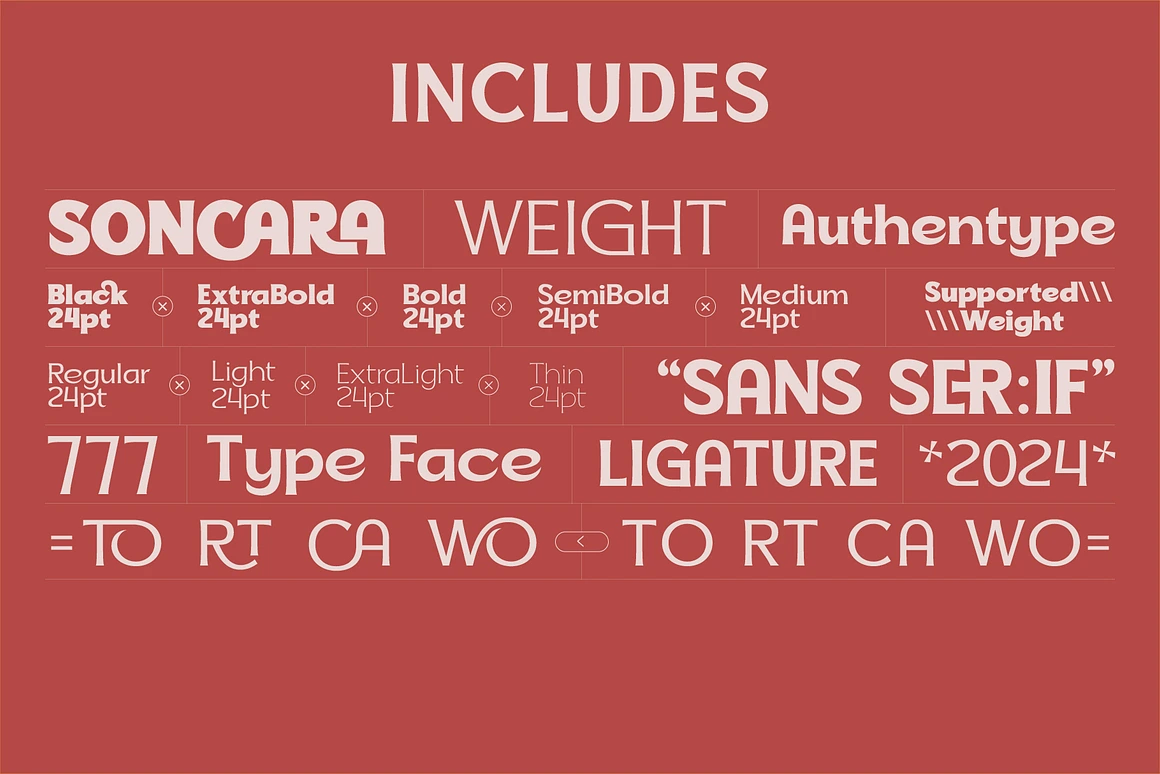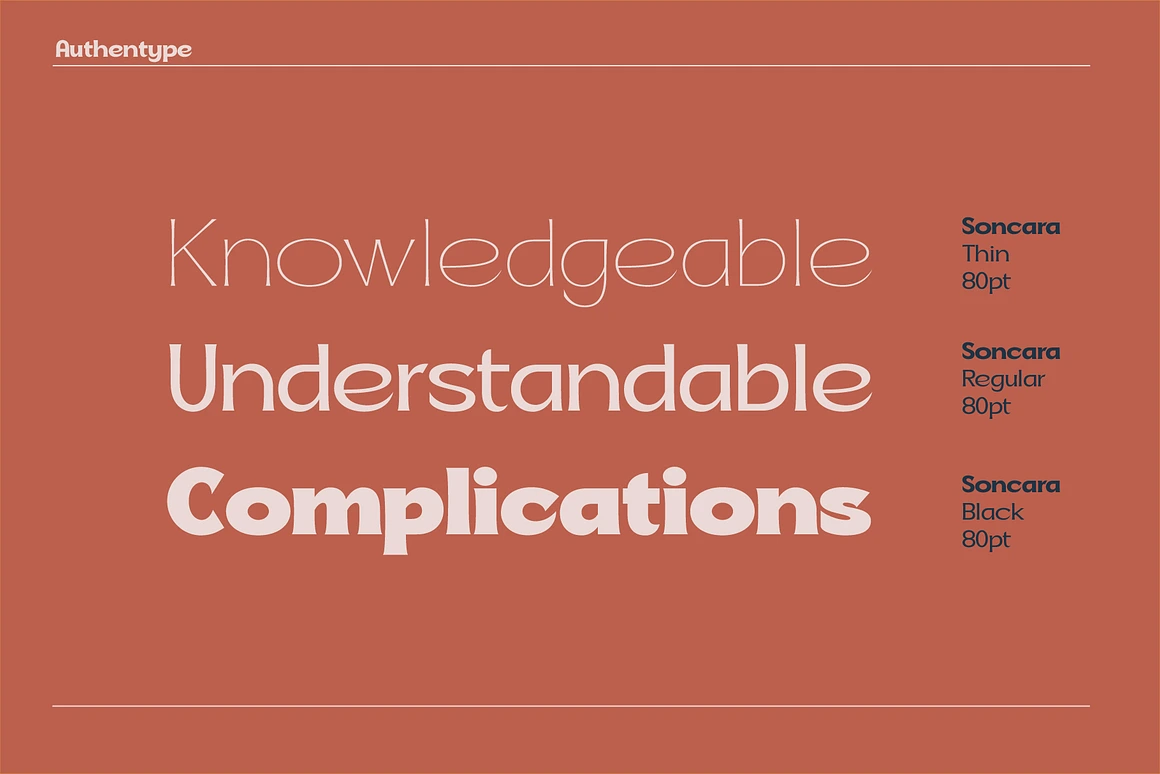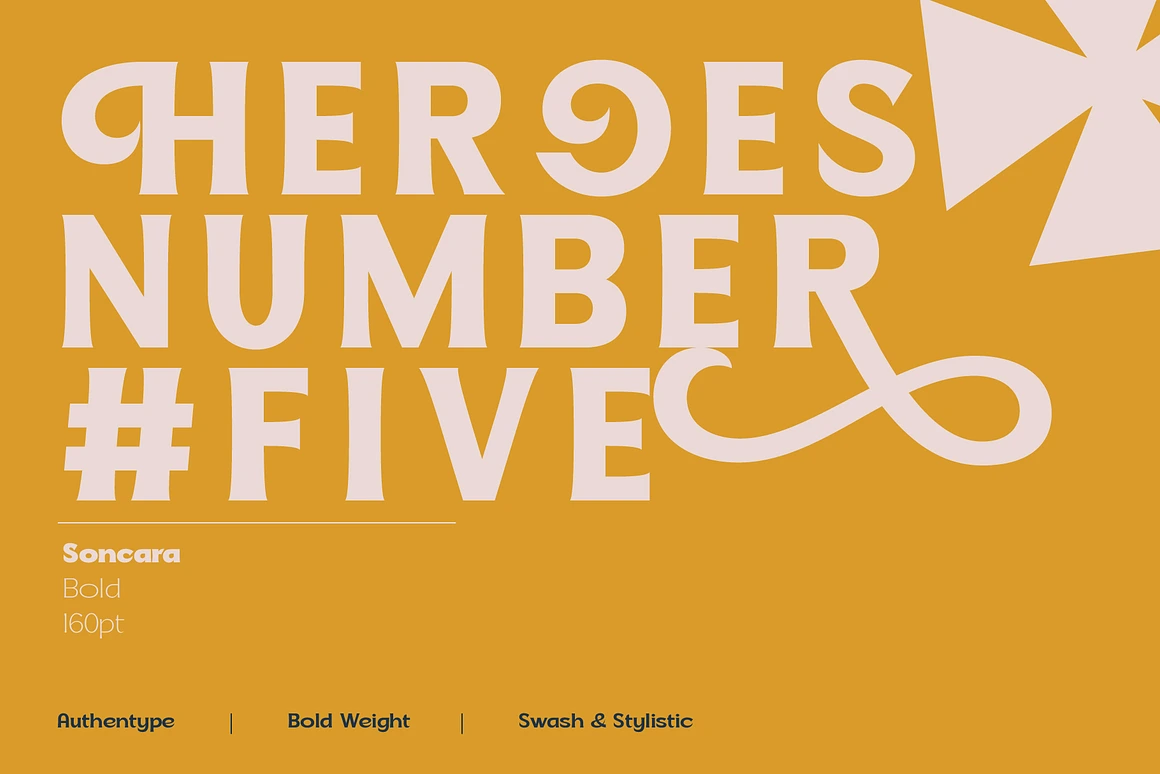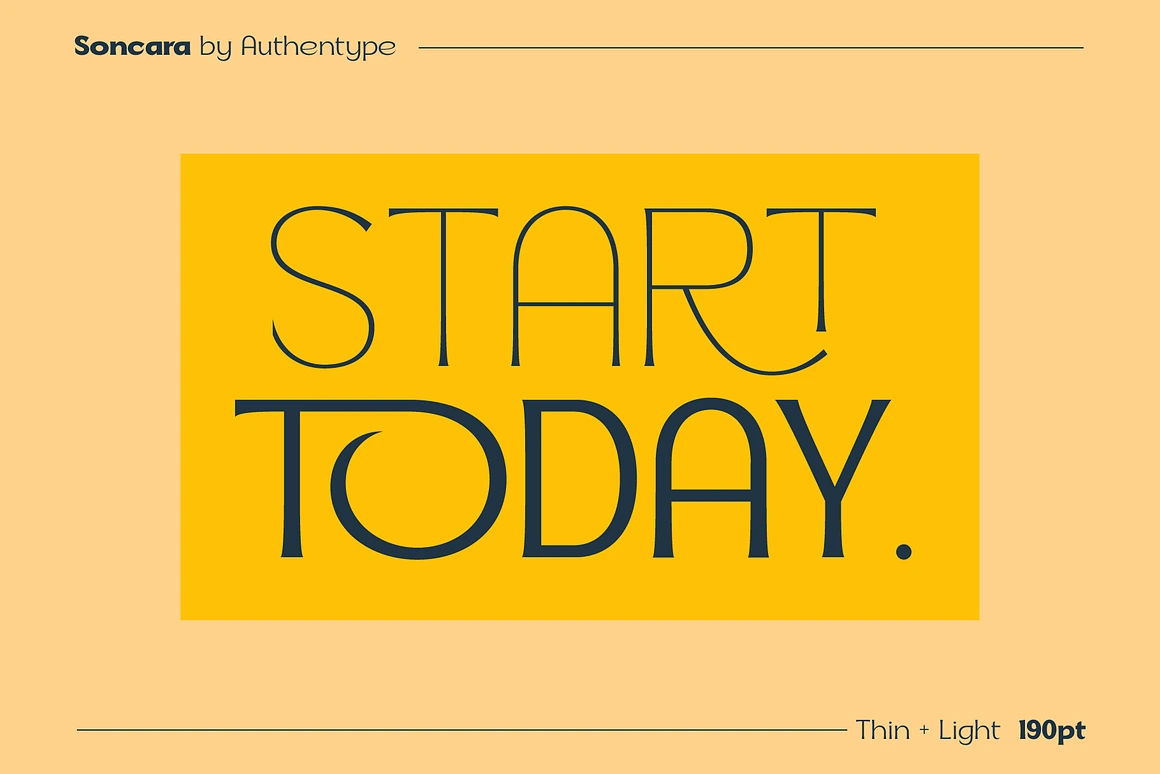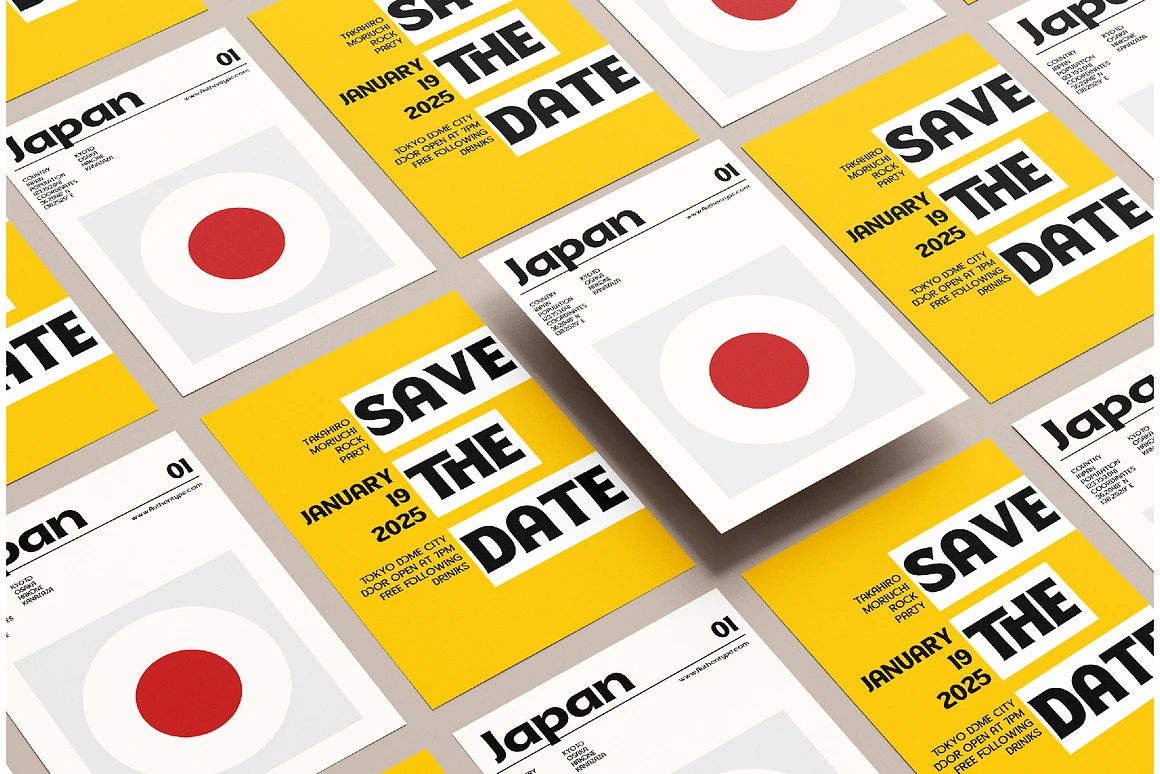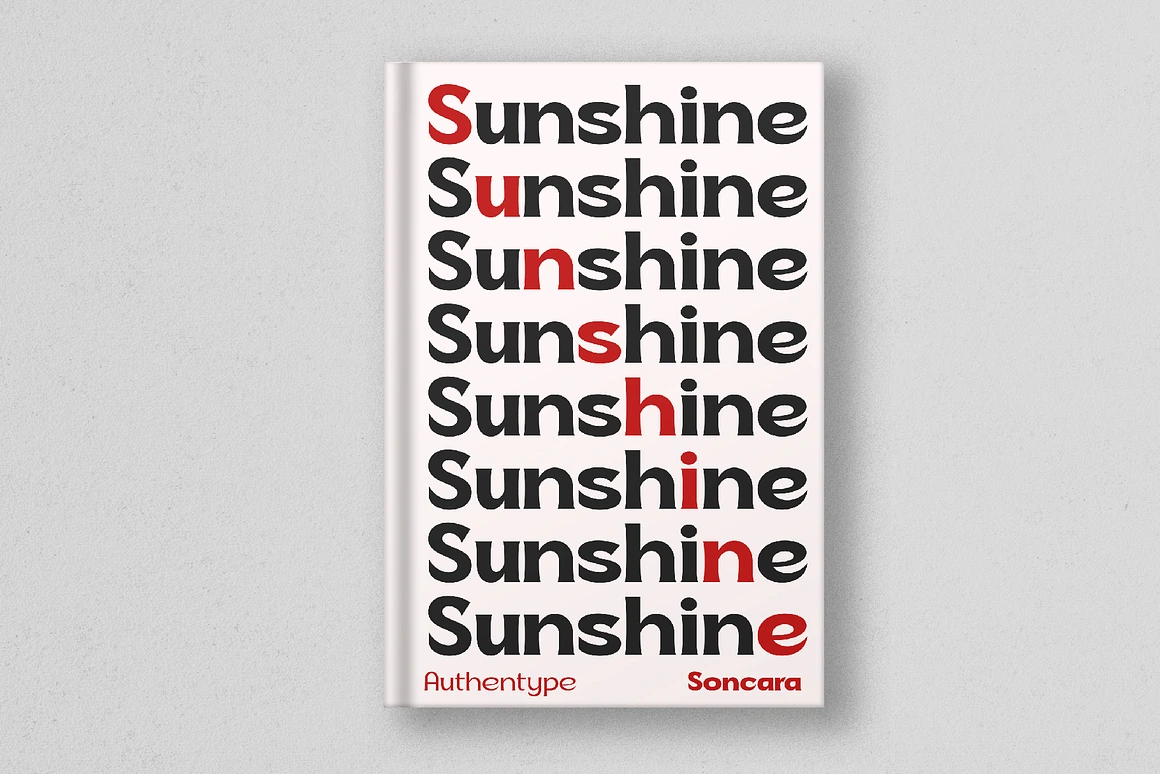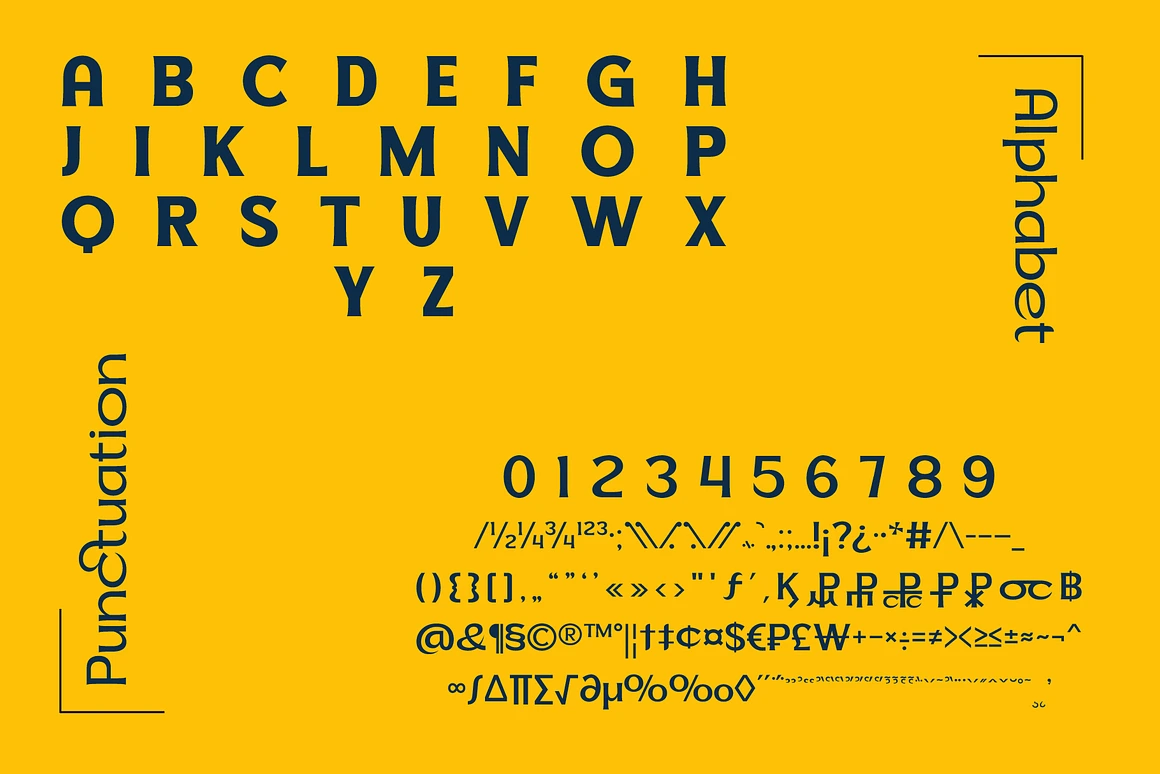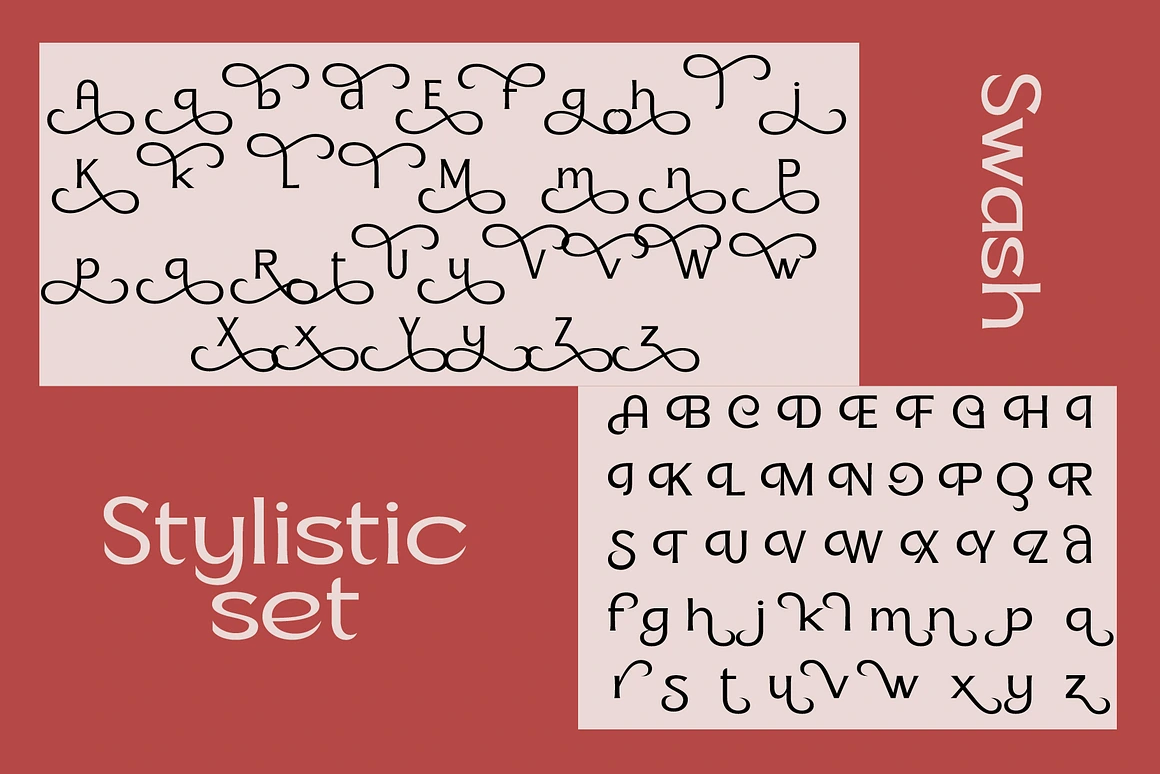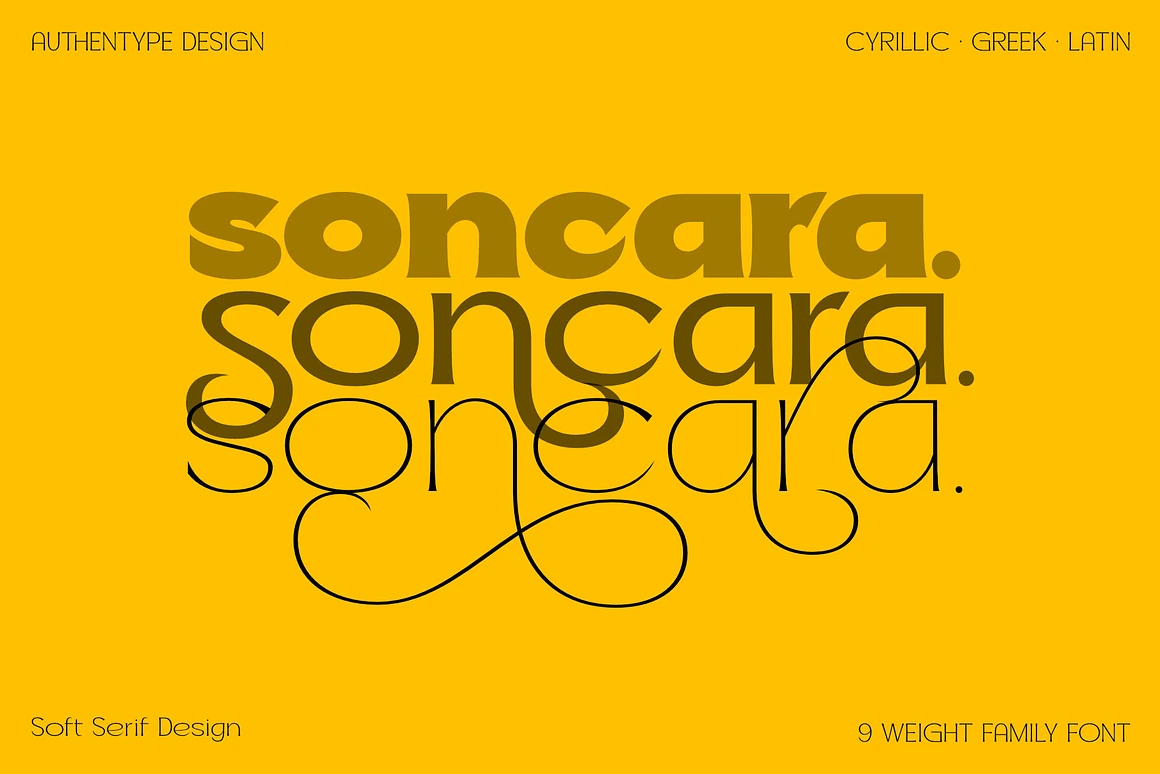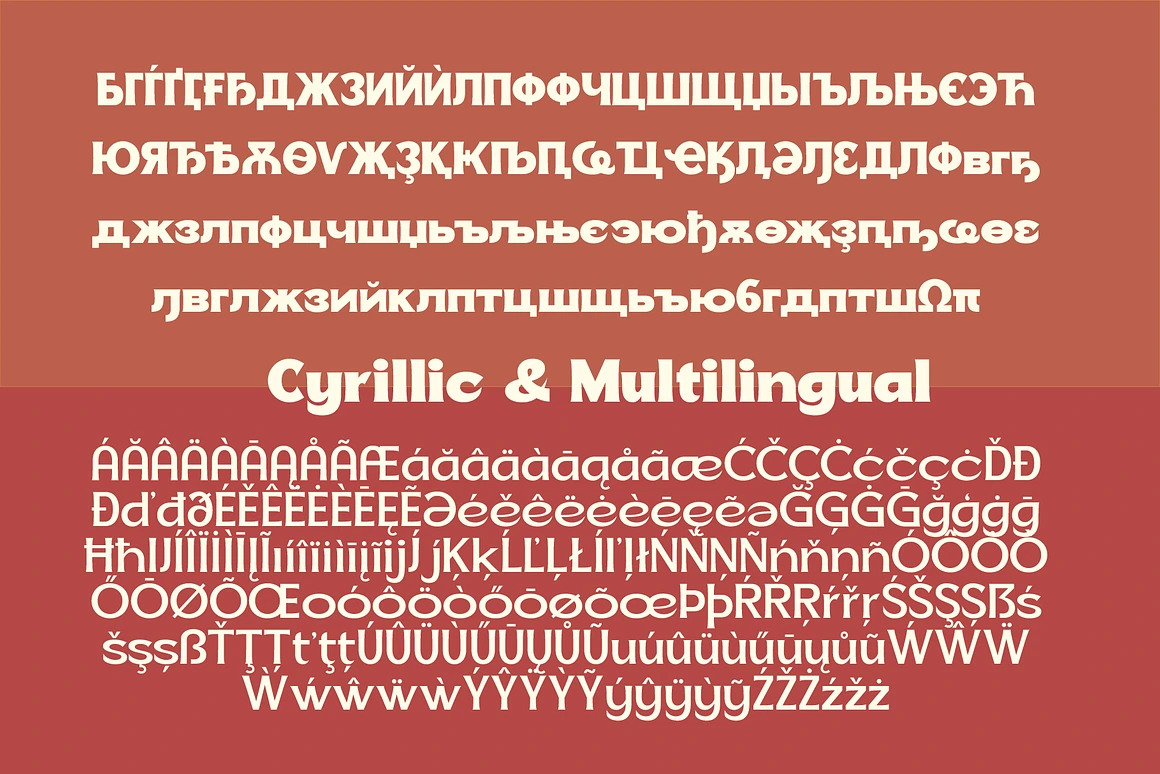
Soncara – Futuristic Soft Serif Font
Soncara Complete Family
Soncara Futuristic Soft Serif font is a modern and elegant futuristic font that blends geometric precision with soft, rounded edges for a refined and contemporary look. Designed to balance innovation and sophistication, Soncara is perfect for branding, headlines, posters, packaging, UI design, and tech-inspired projects.
Its unique fusion of futuristic geometry and gentle serif details creates a forward-looking aesthetic that remains warm and approachable. Whether used for logos, titles, or digital interfaces, Soncara font brings a touch of modern luxury and timeless style.
With multilingual support covering Latin, Greek, and Cyrillic alphabets, and versatile stylistic alternates, Soncara offers exceptional flexibility for global creative projects.
– Soncara Futuristic Soft Serif Font
– Supports Latin, Greek, and Cyrillic alphabets
– Multilingual support
– Stylistic alternates & ligatures